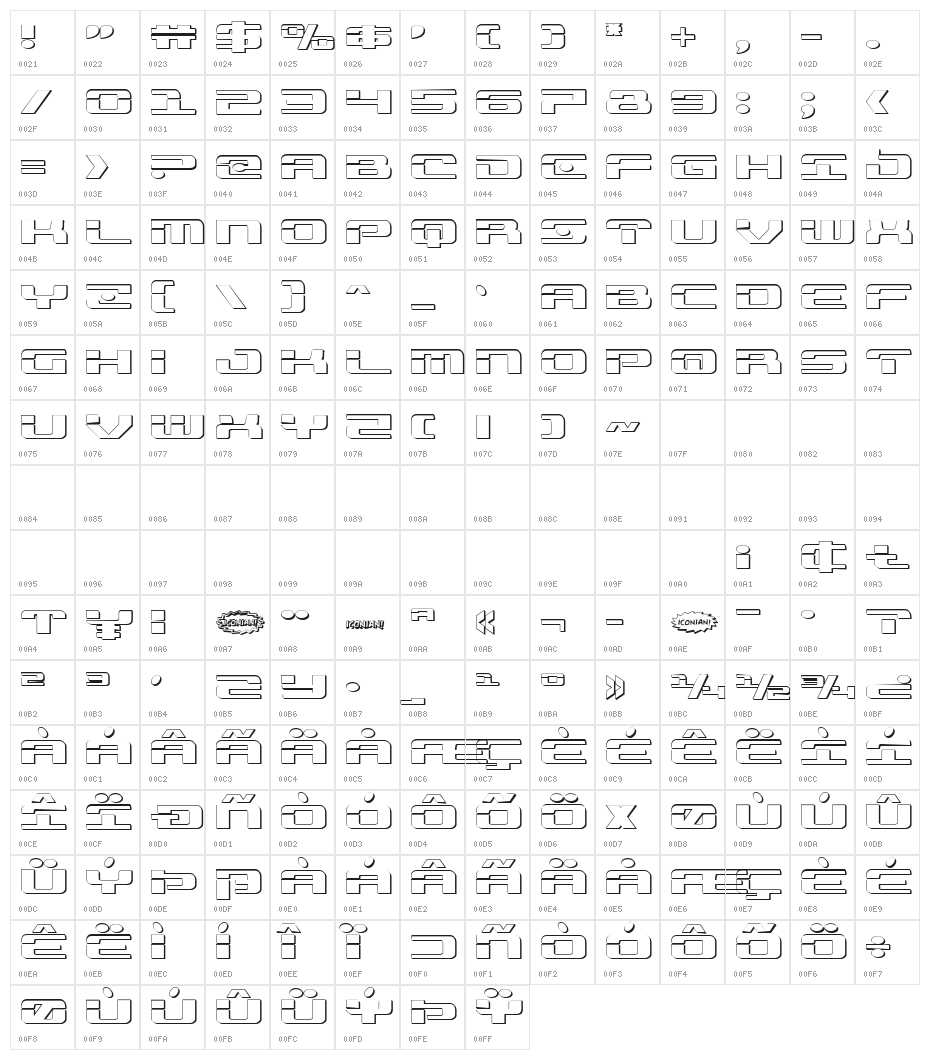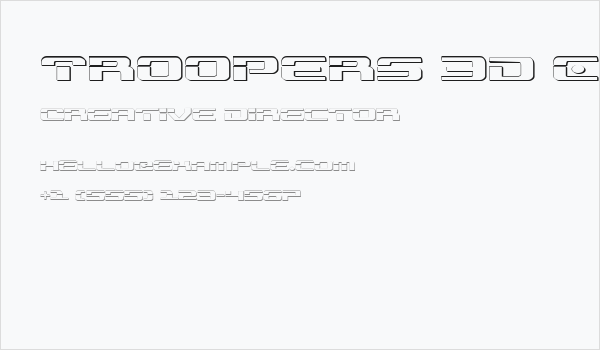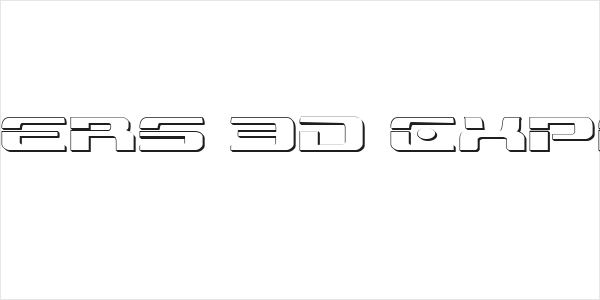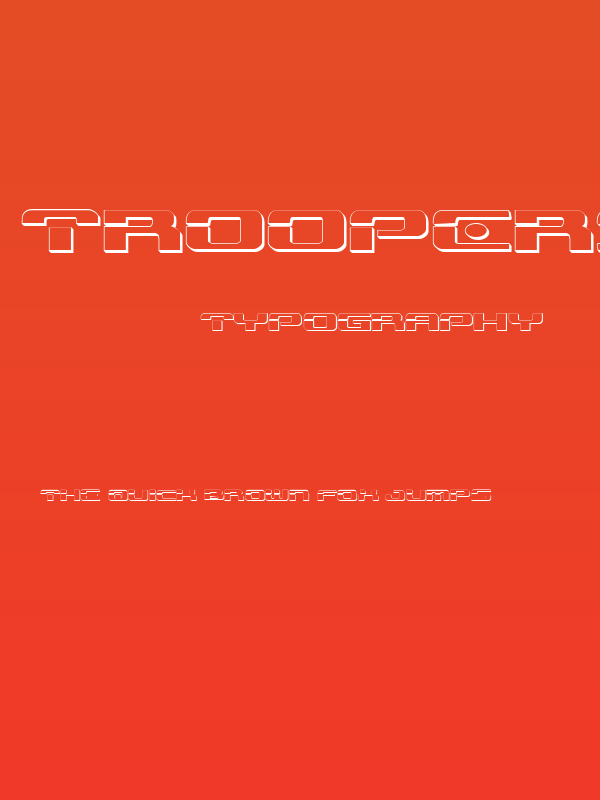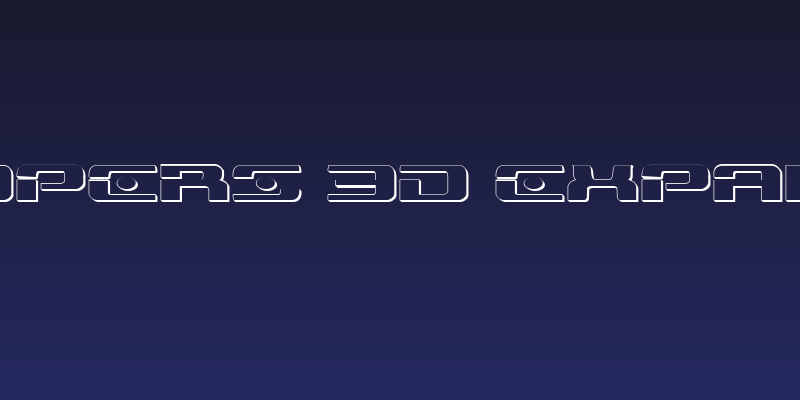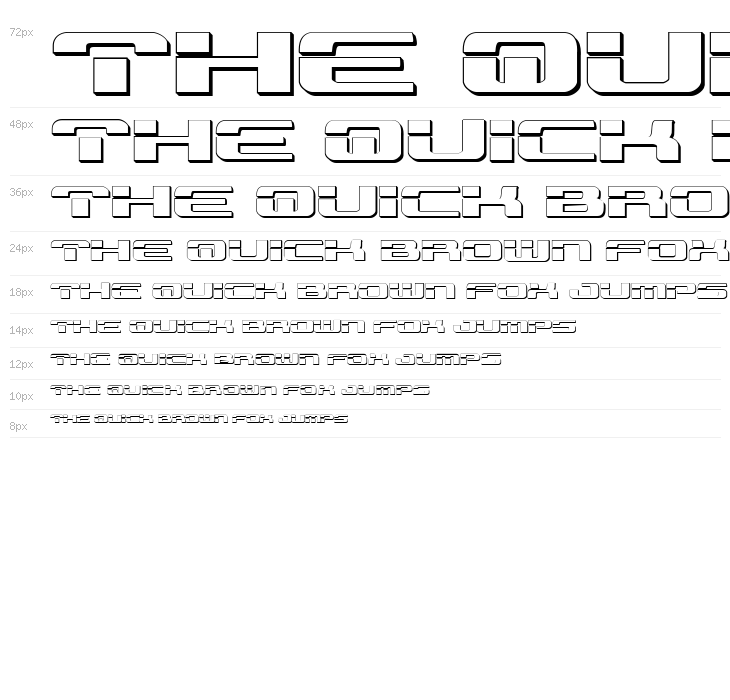
Troopers 3D Expanded Font
Troopers 3D Expanded Description
This font features a bold, three-dimensional design with an expanded width, giving it a futuristic and dynamic appearance. The characters are outlined with a double line, creating a hollow effect that enhances its 3D look. The geometric shapes and straight lines contribute to a modern and tech-inspired aesthetic. Each letter and number is distinct, with sharp angles and a consistent structure that maintains readability despite its decorative style. The special characters follow the same design principles, ensuring uniformity across the font set.
Overall StyleFuturistic
Proposed ProjectsIdeal for sci-fi movie posters, tech company logos, video game titles, and futuristic-themed event invitations.